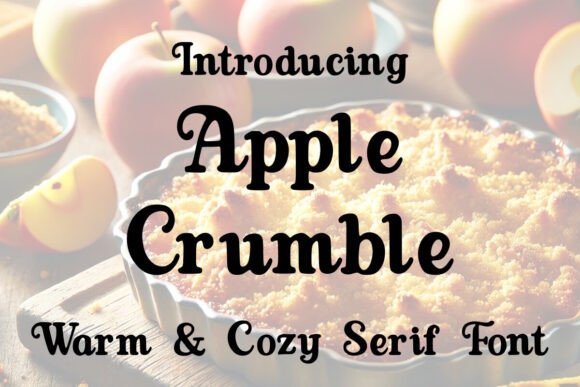
Discovering the Perfect Slice of Typography
Have you ever been in the midst of a creative project, pouring over font options, and then suddenly, it hits you – the perfect combination of style and personality? For many designers, this moment is what makes all the late nights and early mornings worth it. And for those who crave a warm, inviting aesthetic, there’s one typeface that’s sure to satisfy: the Apple Crumble Font.
This charming serif font is a masterclass in cozy, vintage charm. With its soft curves and nostalgic feel, the Apple Crumble Font brings a sense of comfort and character to any design. Whether you’re creating a homely bakery sign or a retro-style logo, this font is as versatile as it is charming.
As a valuable addition to any designer’s toolkit, the Apple Crumble Font is sure to become a go-to choice for projects that require a touch of warmth and personality. So why not take a bite out of this delightful typeface and see how it can elevate your next design project?
Apple Crumble Font Key Features
- Font Family: Apple Crumble is a display font family designed for use in digital products.
- Font Size: Apple Crumble is designed to be used at large sizes, making it perfect for headlines and titles.
- Resolution: The font is optimized for high-resolution displays, ensuring crisp and clear rendering at 300 DPI and above.
- Unique Characteristics: Apple Crumble features a playful, hand-drawn feel with a mix of rounded and pointed shapes, giving it a unique and eye-catching appearance.
- Kerning and Ligatures: The font includes advanced kerning and ligature pairs, ensuring smooth and professional-looking text.
Apple Crumble Font Review
Overall, I think the Apple Crumble Font has some nice qualities, but it also has its limitations.
- ✨ Unique and playful feel: The font has a fun, whimsical vibe that can be perfect for creative projects or branding.
- ✨ Good legibility: Despite its ornate nature, the font is still relatively easy to read, making it suitable for body text or headings.
- ✨ Versatility: Apple Crumble Font comes in a range of weights and styles, allowing for a lot of flexibility in how you use it.
- ⚠️ Limited font size range: The font can become difficult to read at very small or very large sizes, which may limit its use in certain contexts.
- ⚠️ Not ideal for formal or corporate work: The playful feel of the font may not be suitable for formal or professional projects where a more serious tone is required.
The Apple Crumble Font is a fun and versatile option that can add a playful touch to your designs. While it may not be suitable for every project, it’s definitely worth considering for creative or branding work. Just be mindful of its limitations and use it thoughtfully.
For best results, use Apple Crumble Font in combination with distressed textures or watercolor effects to create a cohesive look.
- Invitations and wedding stationery
- Food and beverage branding Alternatives to Apple Crumble Font
- Watercolor illustrations of pastries and baking utensils
- Warm, earthy color palette with shades of beige, brown, and golden yellow
- Custom-designed bakery logos and icons
- Watercolor illustrations of flowers, greenery, and vintage patterns
- Soft, muted color palette with shades of blush, ivory, and moss green
- Custom-designed wedding monograms and stationery elements